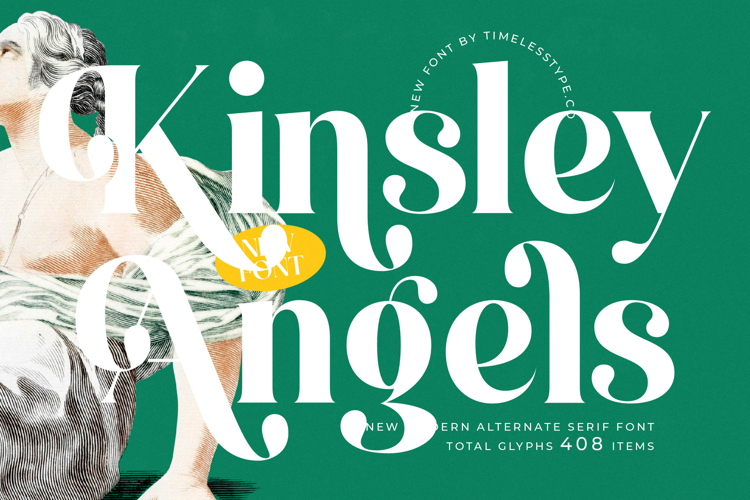
Kinsley Angels - New Modern Alternate Serif Font
Elevate your designs with unparalleled grace. Introducing Kinsley Angels - New Modern Alternate Serif Font, a typeface that masterfully blends timeless elegance with a distinct contemporary edge. Its high-contrast letterforms and refined serifs create an instant impression of sophistication and high-end appeal, making it a stellar choice for projects demanding classic beauty and modern flair. This font ensures your message is delivered with impact.
Unlock a world of creative possibilities. Kinsley Angels - New Modern Alternate Serif Font boasts an exceptional array of alternate characters and ligatures, transforming ordinary text into extraordinary design statements. These unique stylistic sets provide incredible versatility, allowing designers to craft bespoke headlines, logos, and editorial layouts. Each glyph offers a harmonious balance of form and function, appealing to an audience appreciating exquisite detail.